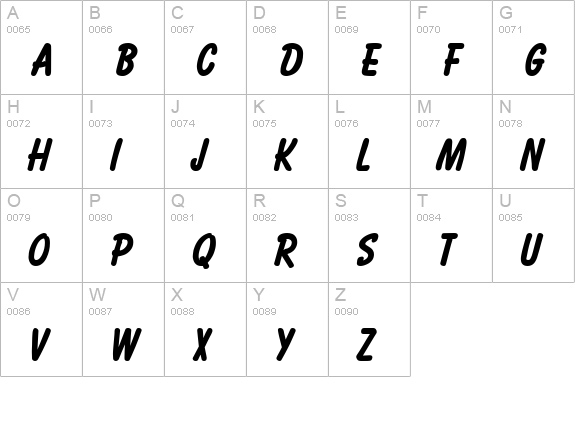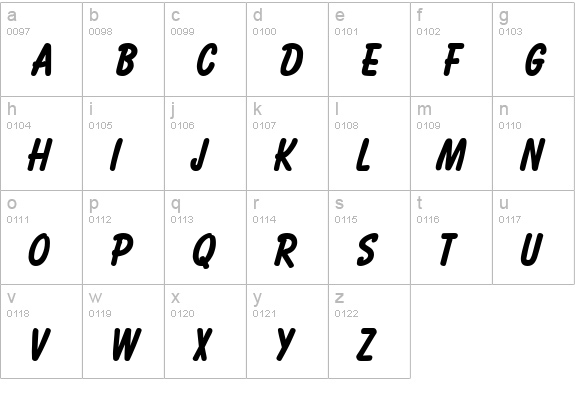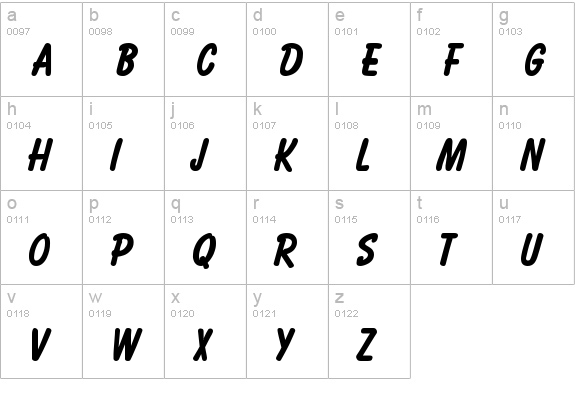
Bassett H Normal is the standard, neutral variant in the Bassett typeface family \xE2\x80\x94 well suited to general body text, paragraphs, and standard typographic work.
Bassett H Normal font is a versatile and modern typeface that is perfect for a wide range of design projects. Its clean lines and balanced proportions make it easy to read and suitable for both print and digital applications. This font exudes a sense of professionalism and sophistication, making it a great choice for branding, editorial design, and more. Best of all, Bassett H Normal font is available for free download at FontsMarket.com. This means you can easily access this high-quality font without any cost, making it a valuable addition to your font collection. Whether you are a designer, student, or hobbyist, this font is a fantastic resource to have at your disposal. Download Bassett H Normal font today and elevate your designs with its timeless elegance and refined aesthetic.